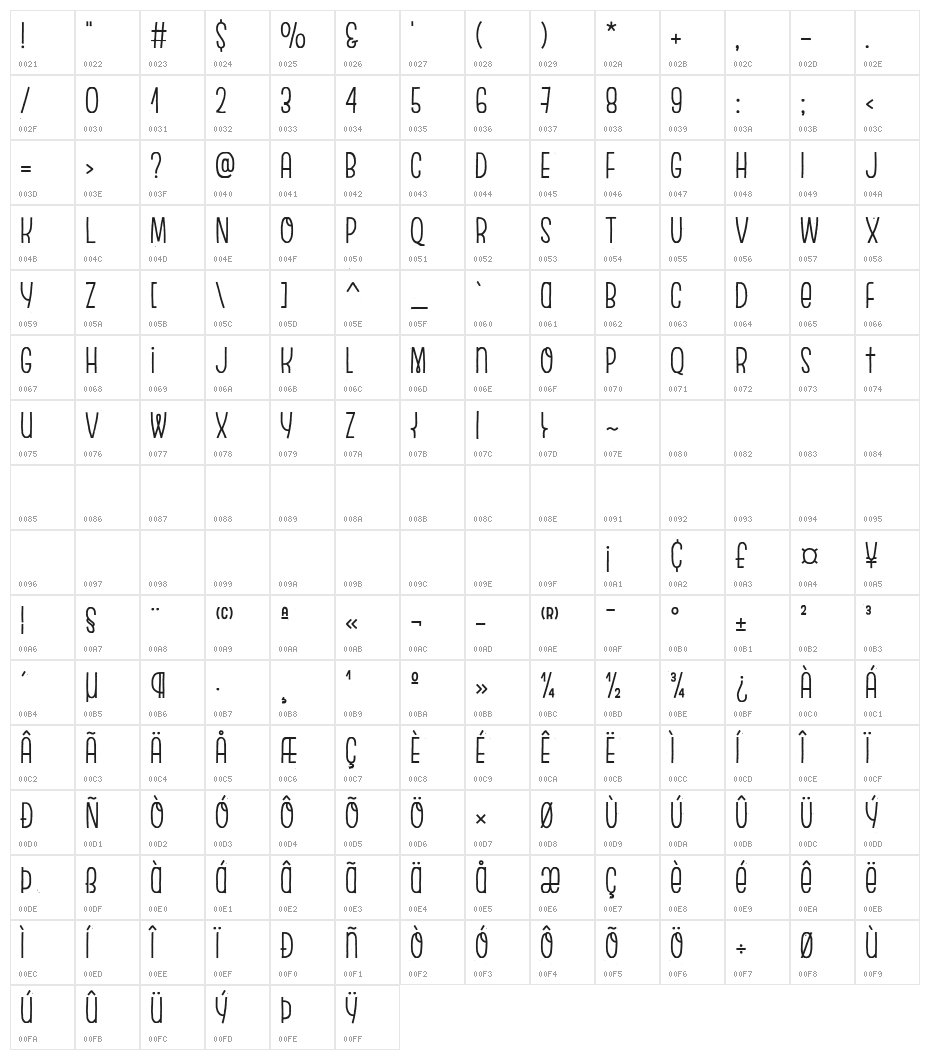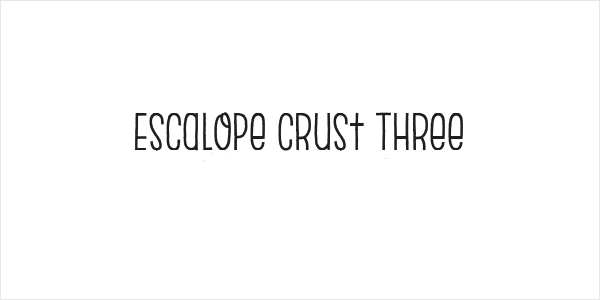
Escalope Crust Three Font
Escalope Crust Three Description
This font features a playful and slightly quirky design with tall, narrow letters that have a hand-drawn feel. The uppercase and lowercase letters maintain a consistent height, creating a uniform appearance. The strokes are even and smooth, with rounded edges that add a friendly touch. The numerals and special characters are designed to match the overall style, ensuring cohesion across all elements. This font's unique character makes it stand out, while still being legible and versatile.